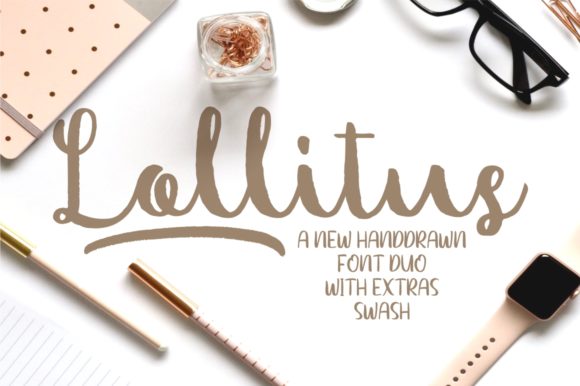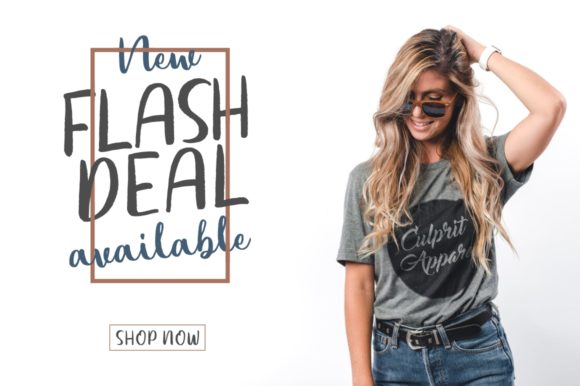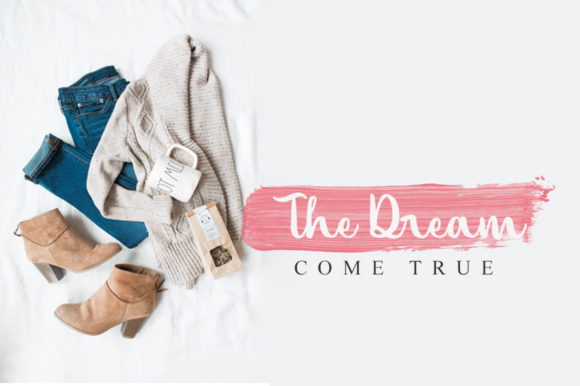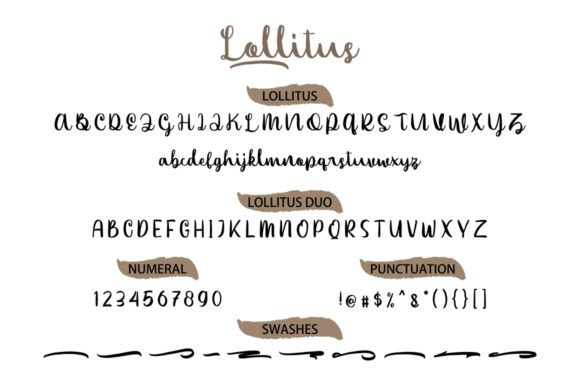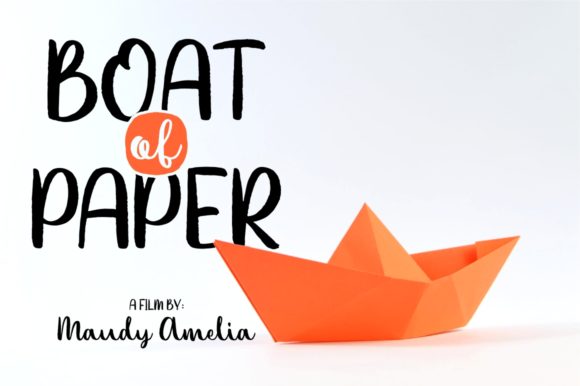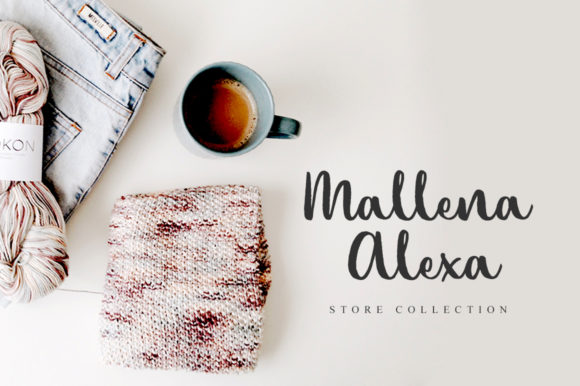
Lollitus Duo Font
About Lollitus Duo Font
The Lollitus is a playful font duo. Both styles have a modern feel and can be combined perfectly.
This fun handwritten duo is perfect for projects that need an organic and natural style.